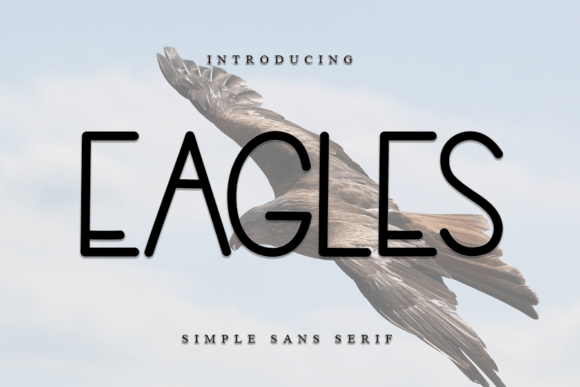
Meet Your New Favorite Font: Eagles Font
You’ve spent hours brainstorming the perfect design for your upcoming craft project, only to have your creativity halted by the perfect font – or lack thereof. The moment you stumble upon that one font that completes your vision is a thrilling one. For designers, finding the right font can be the difference between a good design and a great one.
Enter Eagles Font, a modern Sans serif font that’s sure to elevate your designs. Whether you’re working on a digital project, creating greeting cards, or crafting the perfect presentation, Eagles Font has the versatility to make your designs stand out. Its sleek and cool aesthetic makes it a valuable addition to any designer’s toolkit, and its numerous uses make it a must-have for any creative project.
- Unique Characteristics: The Eagles Font features a distinctive, bold, and modern design, making it ideal for use in sports, action, and adventure-themed applications, such as logos, signage, and merchandise.
- Style Variations: The font family includes several style variations, including Regular, Bold, Italic, and Bold Italic, providing users with a range of options to suit their design needs.
Eagles Font Review
I recently had the chance to work with the Eagles Font, and I have to say it’s a mixed bag. On the one hand, here are some things that really stand out: ✨
- The Eagles Font has a unique and bold style that can add a lot of character to a design. It’s perfect for projects that need a bit of edge.
- The font is highly customizable, with a wide range of weights and styles available. This makes it easy to find the perfect look for your project.
- The Eagles Font is highly legible, even at small font sizes. This makes it a great choice for projects where readability is a top priority.
However, there are also some limitations to consider: ⚠️
- The Eagles Font may not be the best choice for projects that require a more subtle or minimalist look. Its bold style can be overwhelming in some contexts.
Overall, I would say that the Eagles Font is a solid choice for projects that need a bold and eye-catching look. However, it may not be the best fit for every project. With some careful consideration and customization, it can be a real asset to your design arsenal.
The Eagles Font is perfect for:
- Creating bold and modern headings.
- Designing sports-themed graphics and logos.
- Adding a touch of elegance to wedding invitations and stationery.